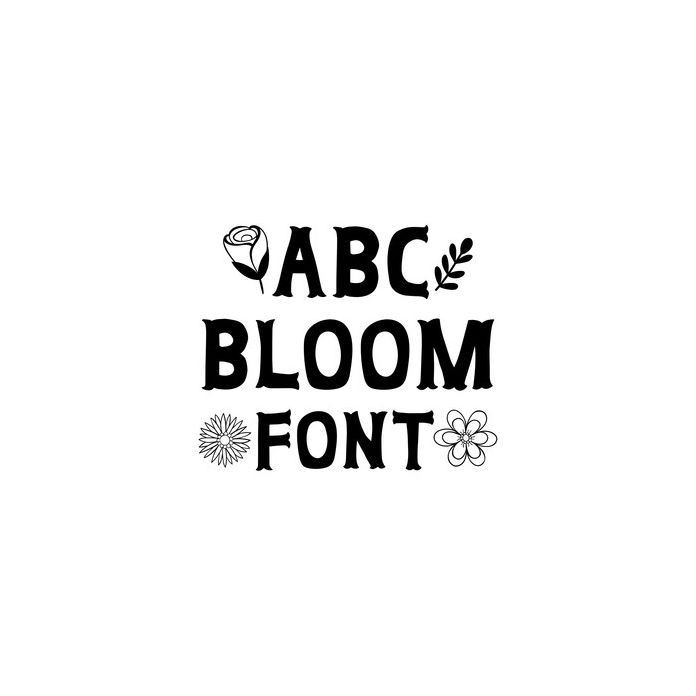
This whimsical font features extra flower themed characters found in these keys: []\|<>. For ideas and inspiration visit www.loriwhitlock.com and www.facebook.com/lori.whitlock.studio. For Lori's video tutorials visit www.youtube.com/loriwhitlock. For a full tutorials list visit www.loriwhitlock.com/blog/tutorials.